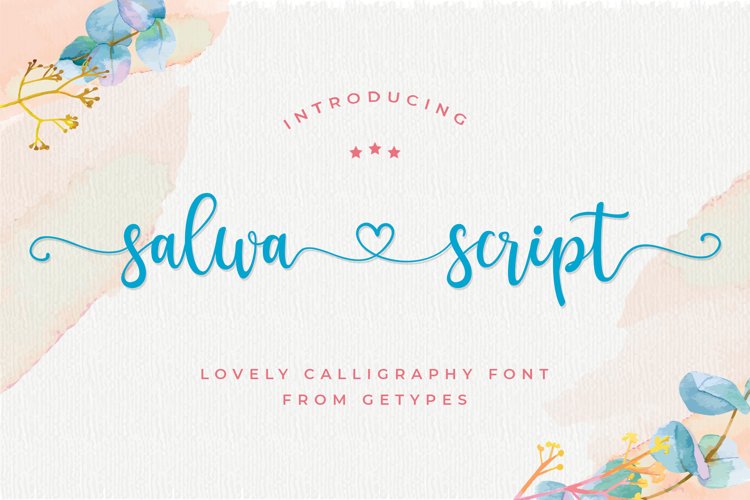
Salwa Script is a beautiful and chic handwritten font. This font is suitable for branding, wedding invitations, and other romantic projects.
This font is PUA encoded which means you can access all of the glyphs and swashes with ease!